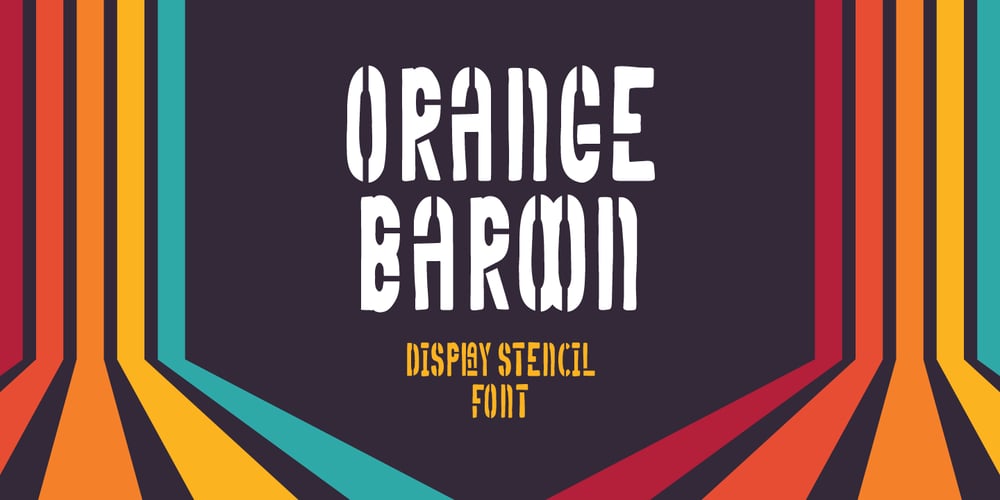
Orange Baroon
Orange Baroon font
Orange Baroon Font Family was designed by Fadli Ramadhan Iskandar and published by Attype Studio. Orange Baroon contains 2 styles and family package options. Orange Baroon – Inspired by typeface on 70s era, Orange Baroon has the vintage font & retro with stencil look. with 2 font style, It’s super easy to use stencil effect with Orange Baroon family font.Two style Font: Regular & DisplayOrange Baroon is perfect for vintage & retro style product, branding, logo, invitation, stationery, product packaging, merchandise, monogram, blog design, game titles, cute style design, Book/Cover Title and more.Features :- Orange Baroon Family Font- Ligatures- Multilingual Support —Hope you enjoy with our font!Attype Studio